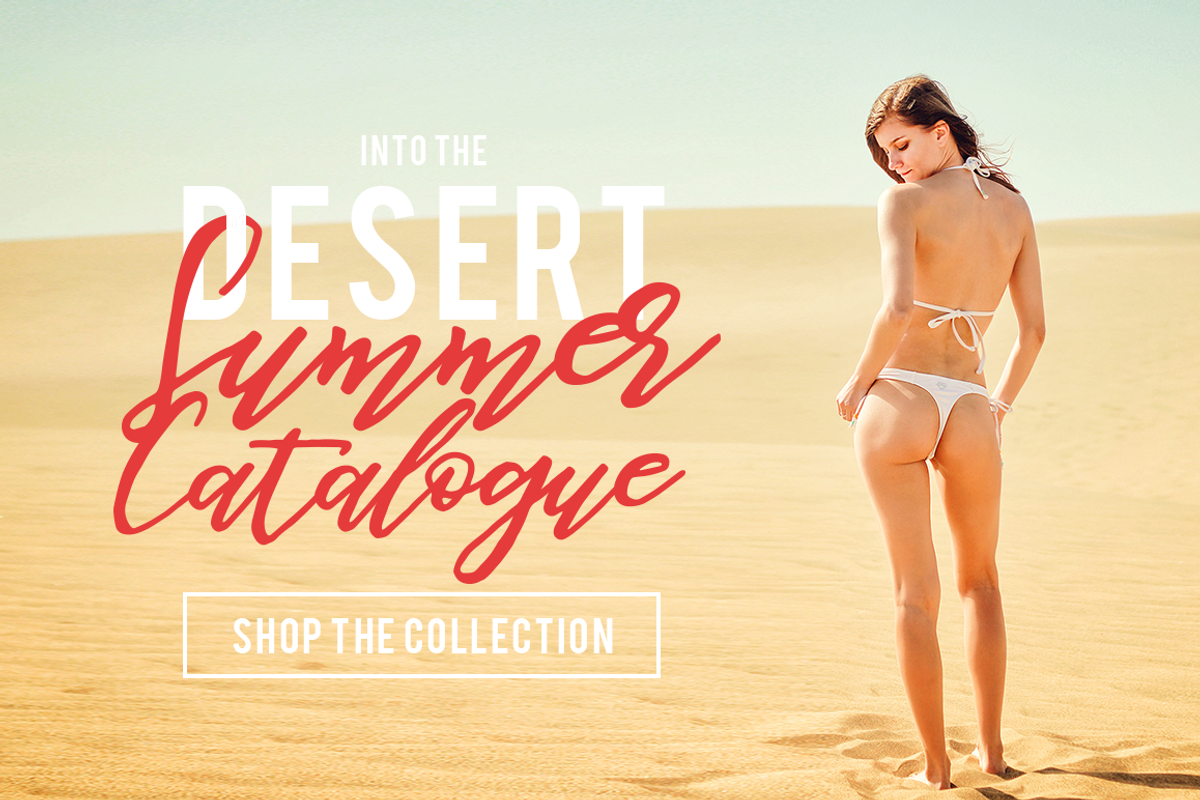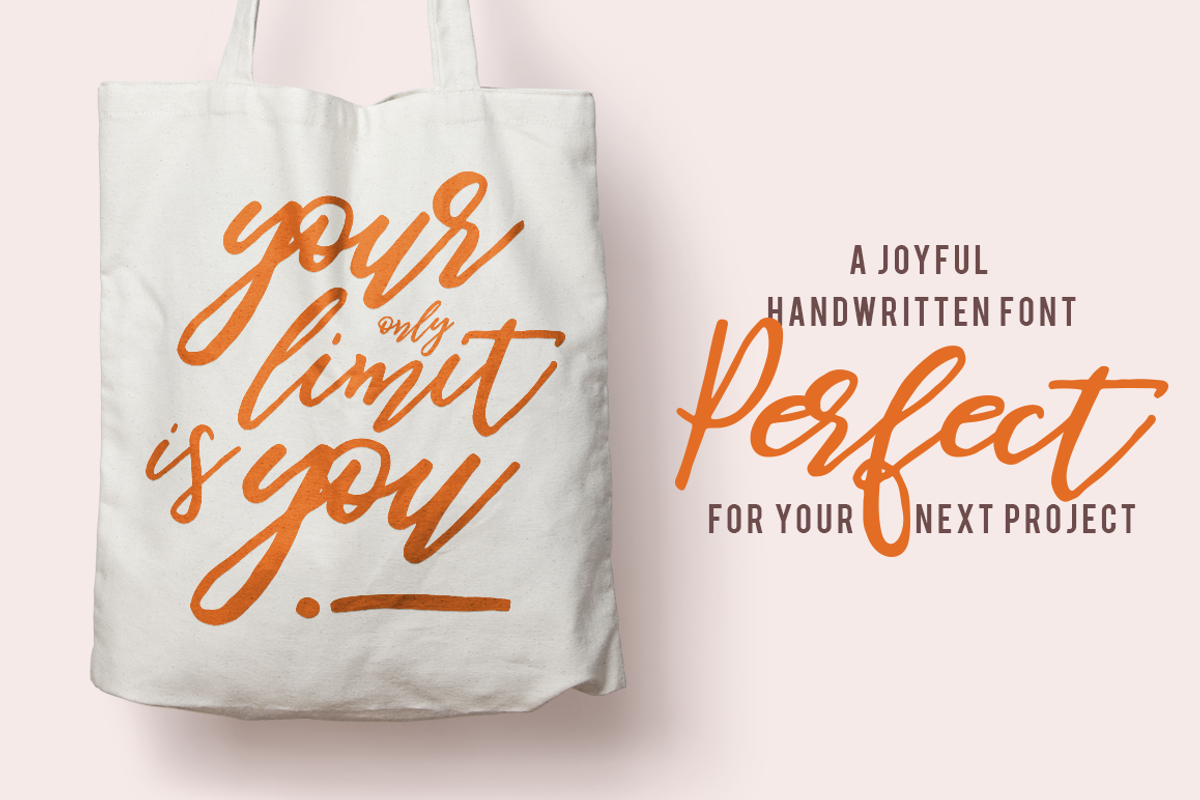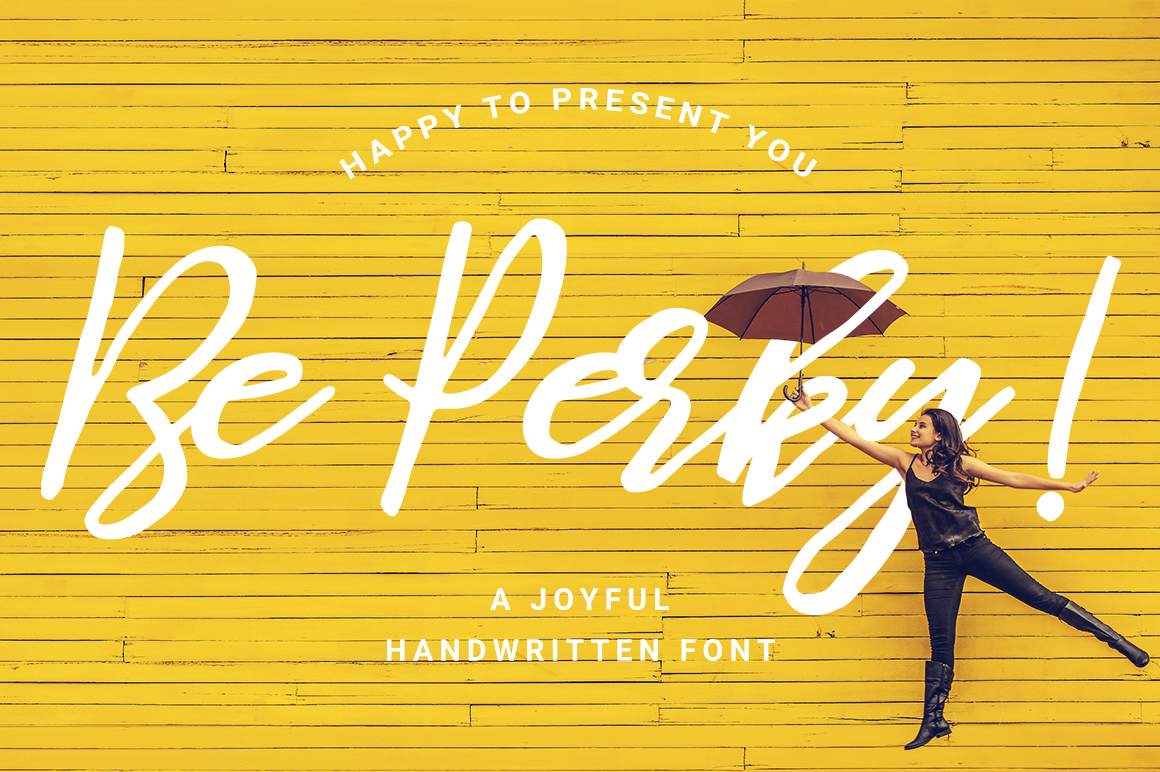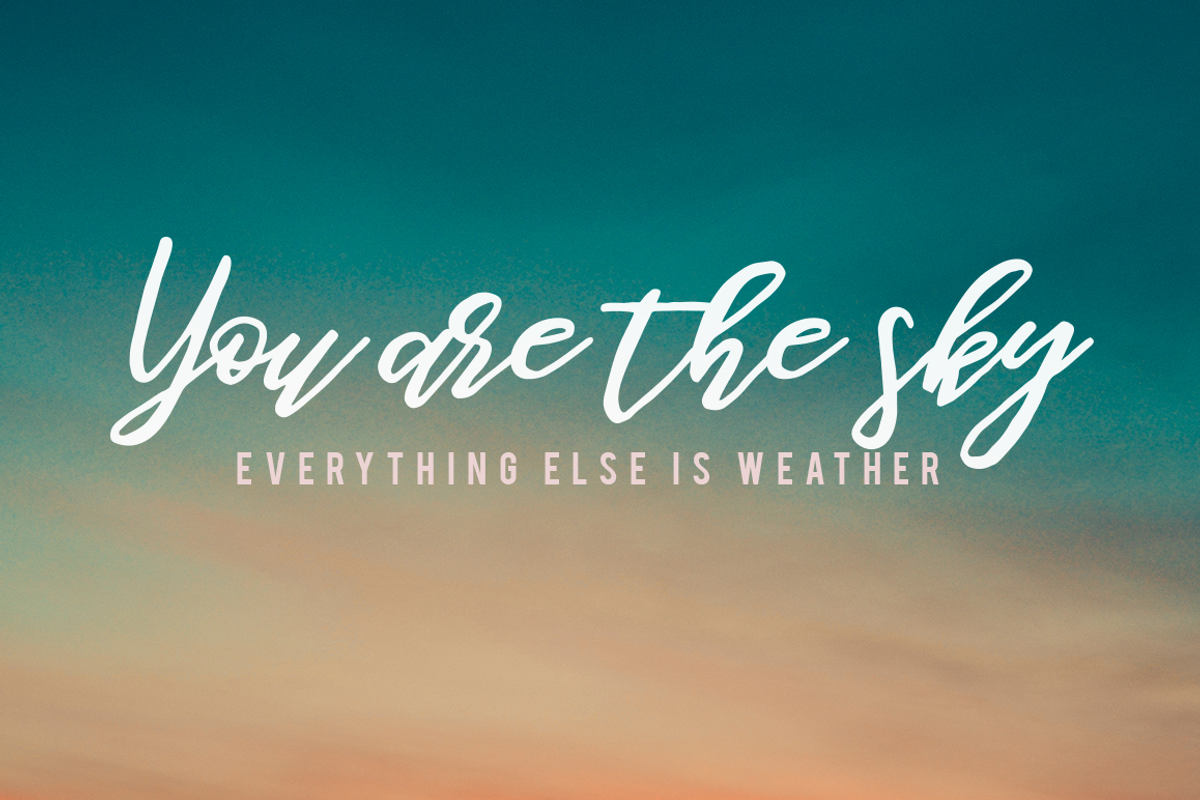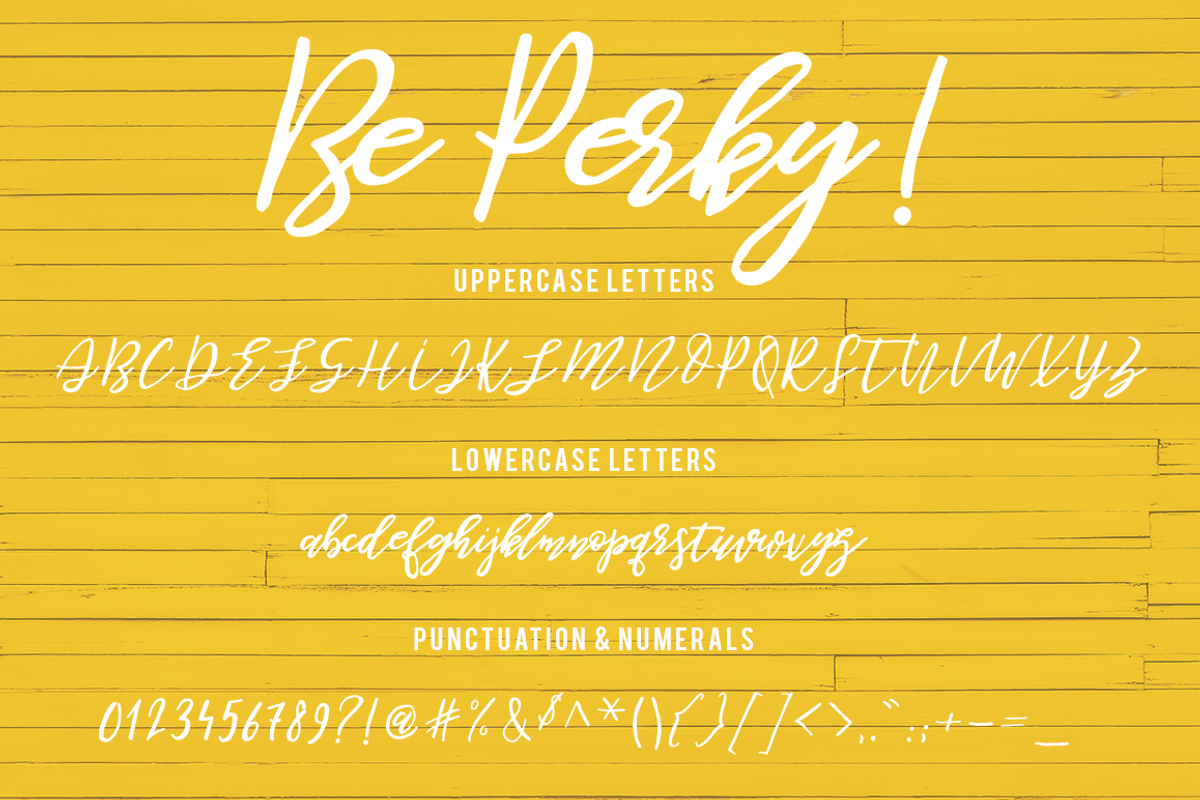
Be Perky! Handwritten Font
I'm Happy to present you: Be Perky! Handwritten Font.
A joyful and natural handwritten font perfect for an authentic brush-lettered feel on your logo, name tag, handwritten quotes, product packaging, social media & greeting cards, badges, labels, blog headlines advertising, poster design, book covers, magazines, fashion campaigns, newsletters, album covers, and more..